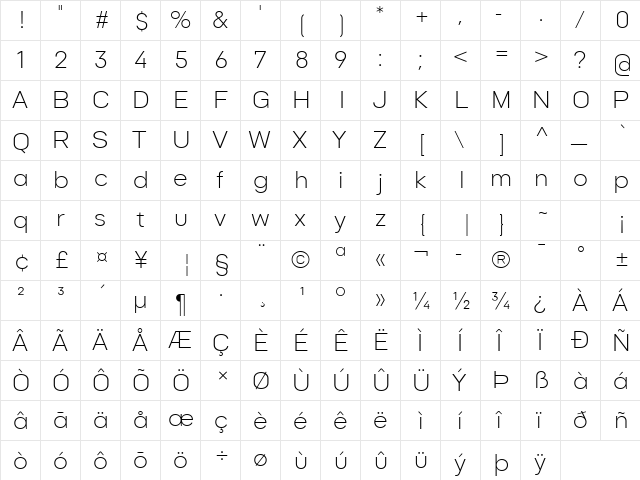
Goldbill XL Light
| Designer | Wahyu S. Adi Wibowo |
Design Context for Goldbill Typeface
Goldbill is a composed and adaptable typeface that performs quietly and consistently across a wide range of design contexts. The delicate stroke weight brings airiness and refinement to layouts.